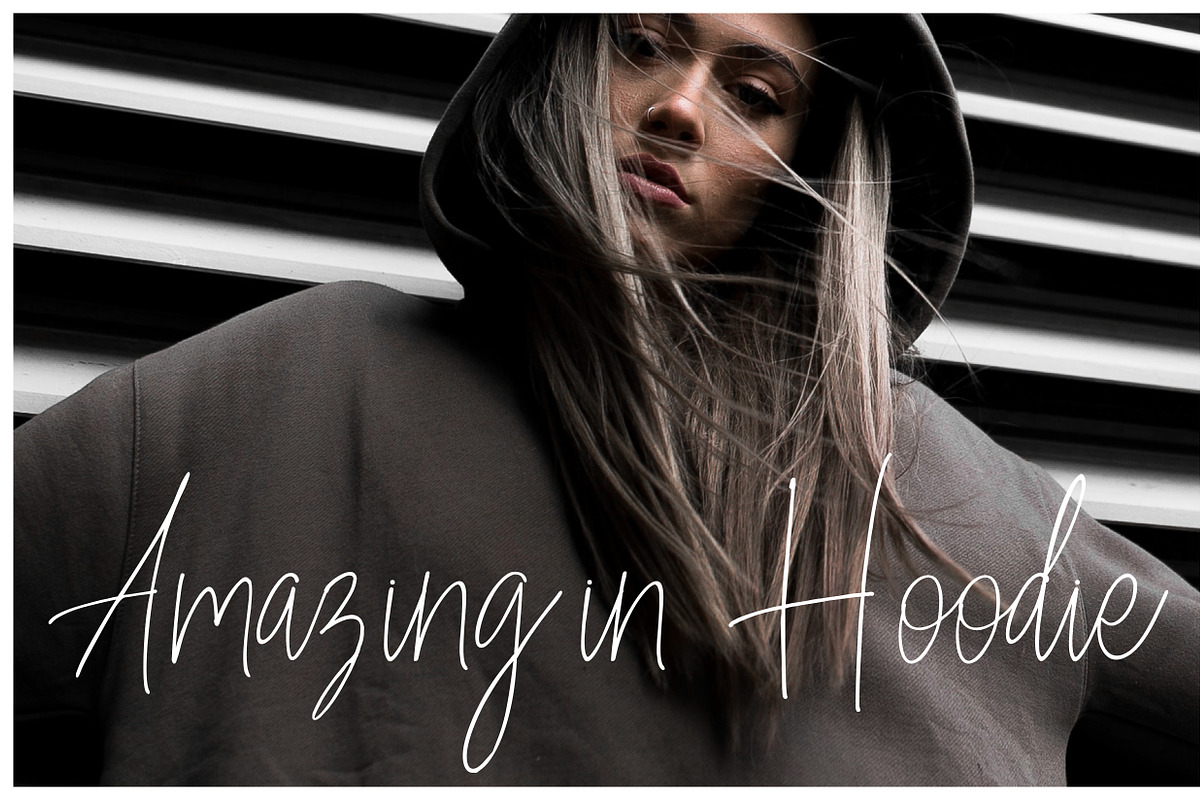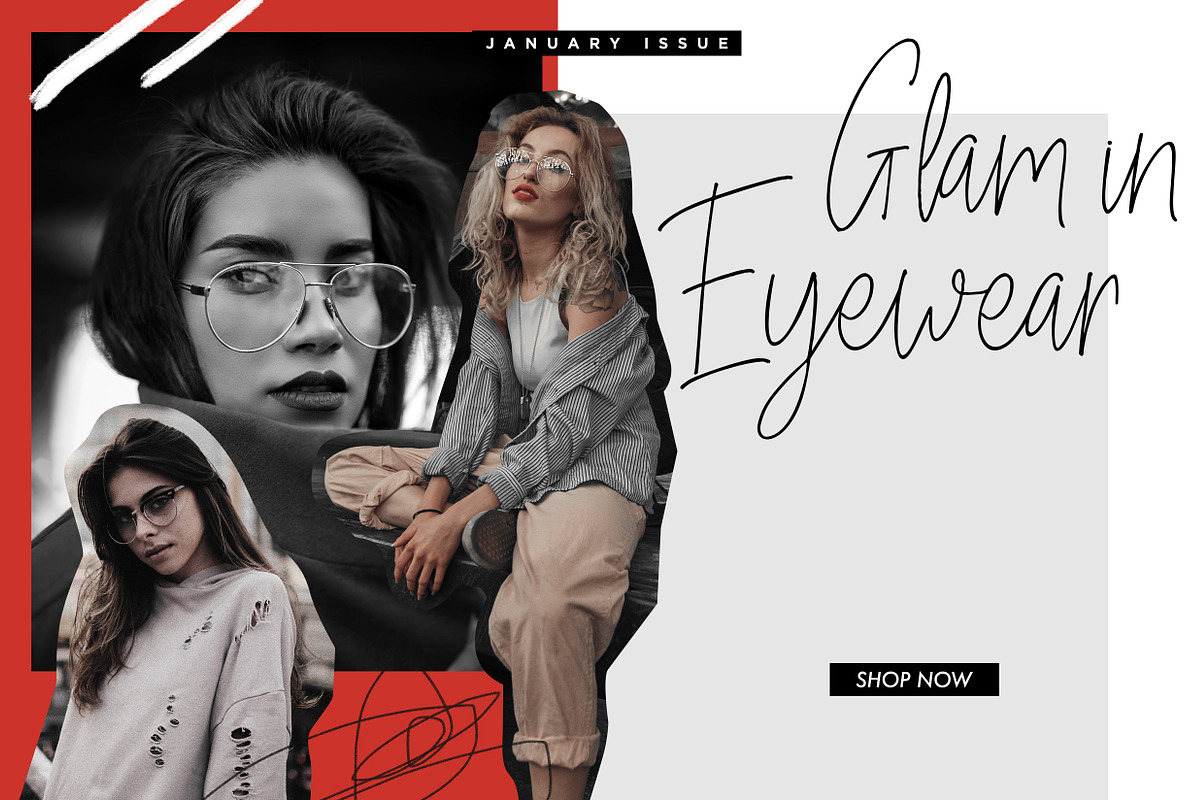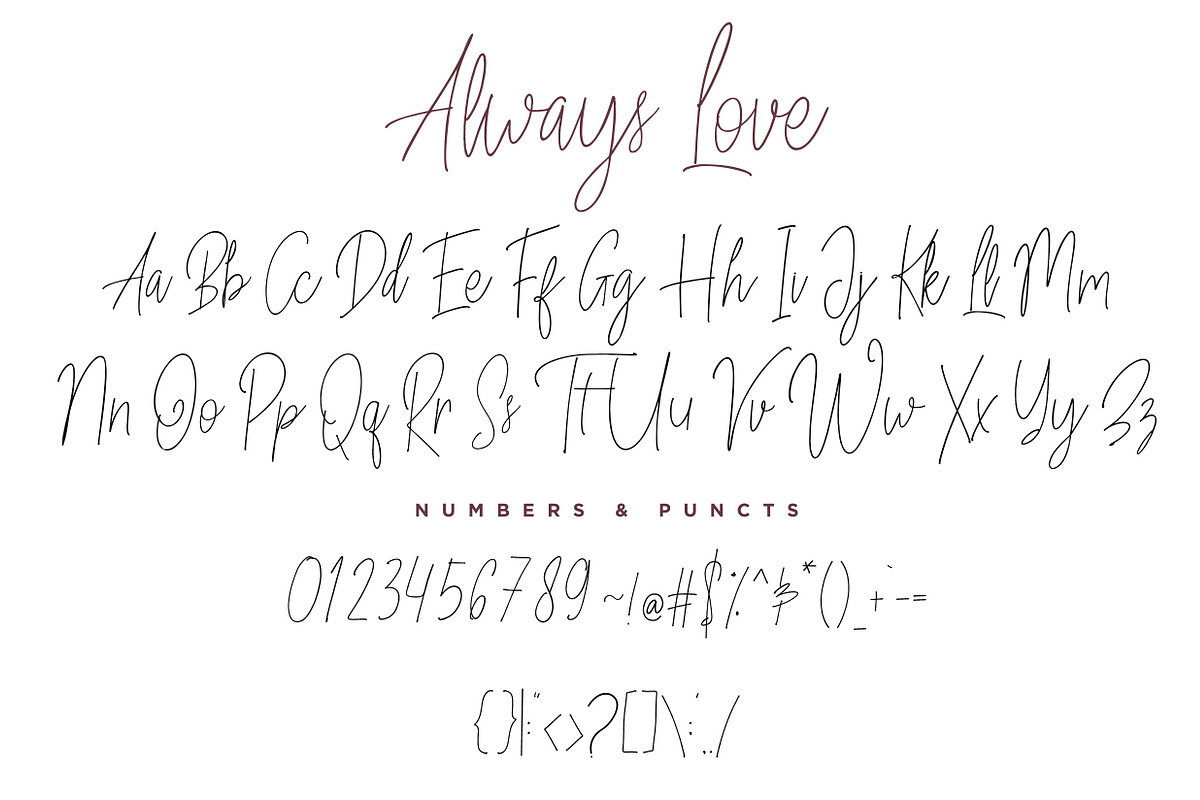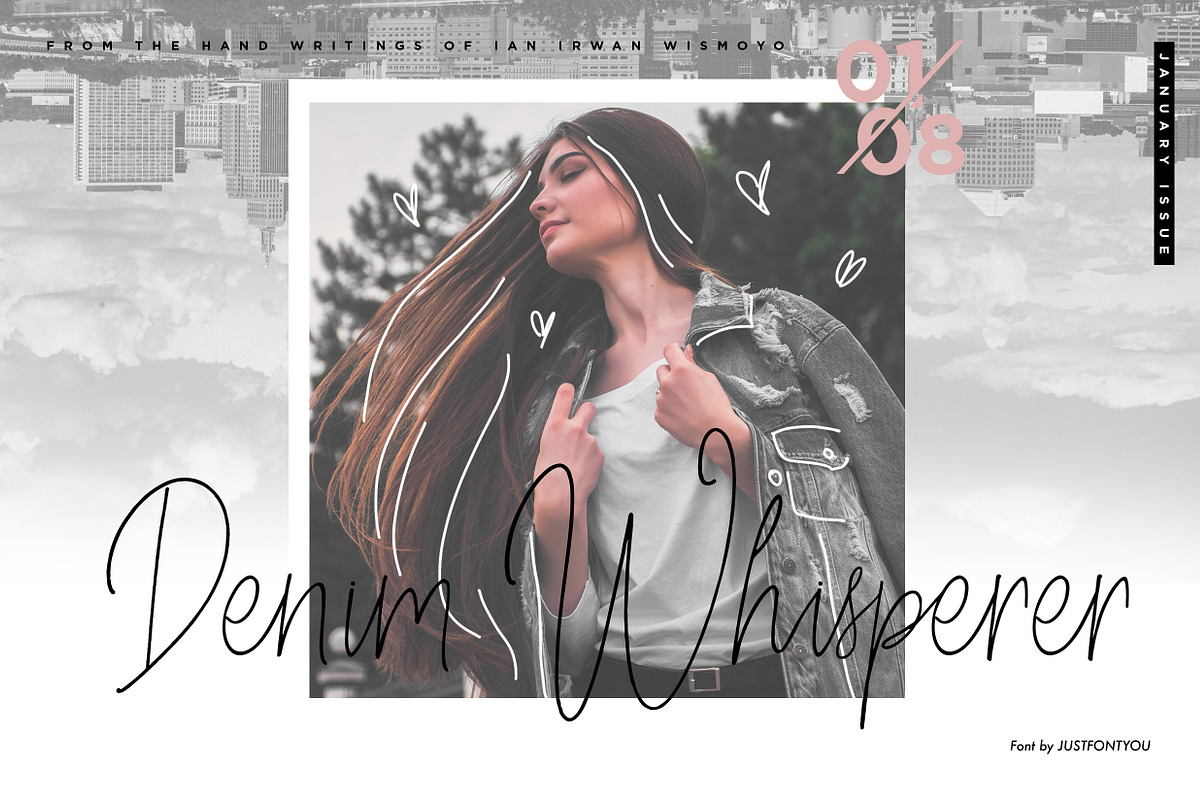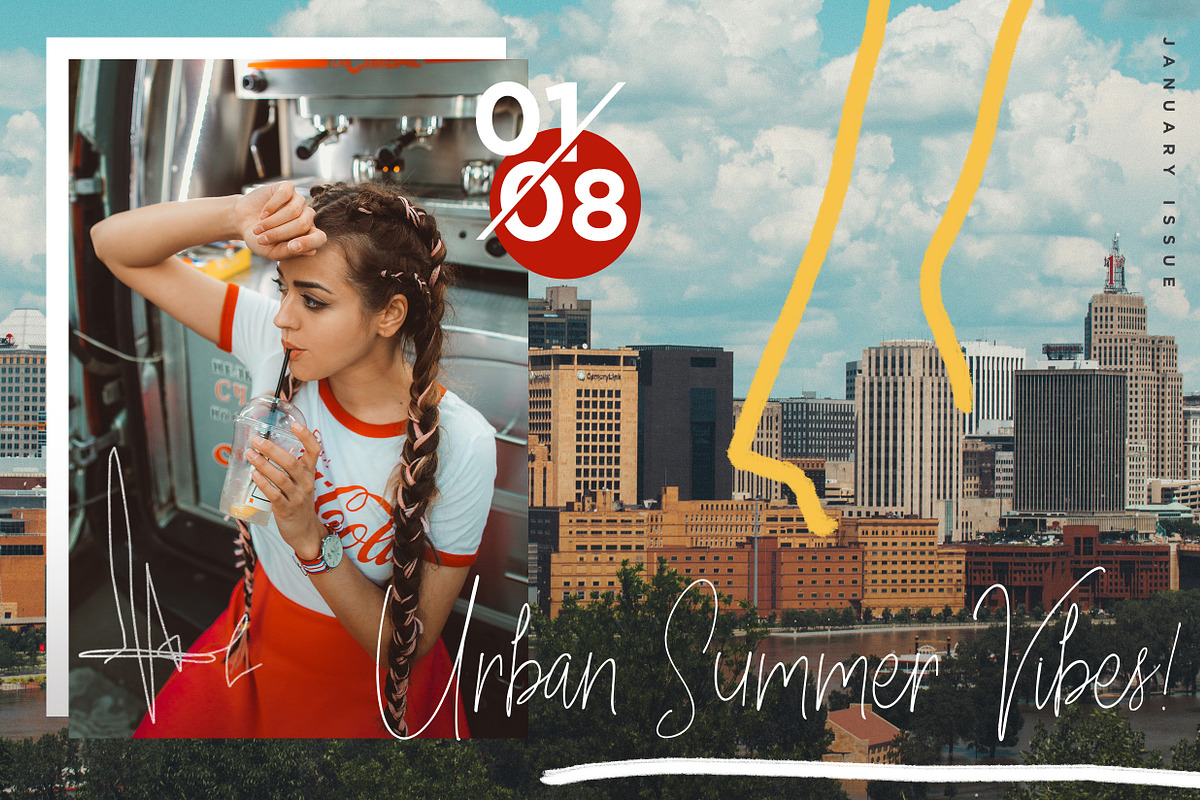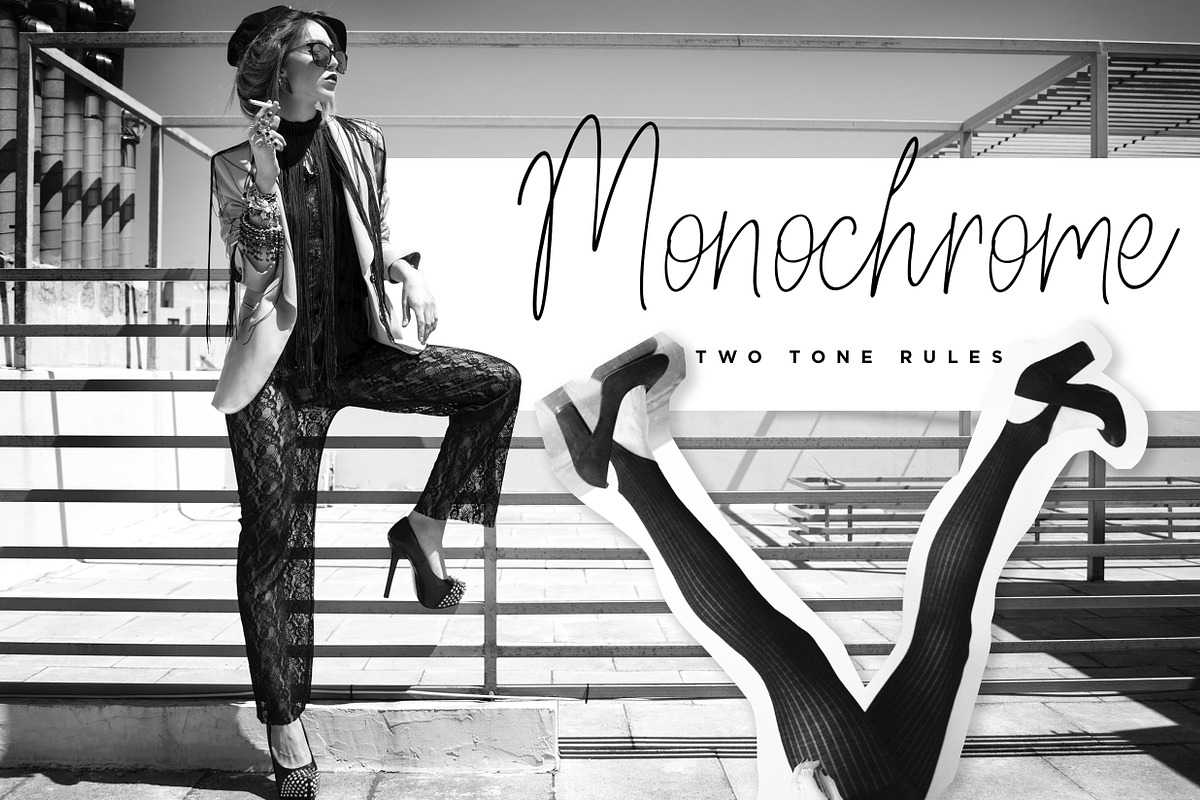
Always Love - Handwritten Font
Always Love, A casual handwriting style font with implementation of my original handwriting into a set of font. Perfectly fit for branding, logo, wedding things, greeting cards, fashion, lookbook, marketing promotion, just put it to your design and it will casually instant love to anyone who see it.
Included Uppercase, Lowercase, Numbers & Punctuations. English language support only. If your language has the same letters with English language, you're good to go with this font.
Always Love - Handwritten Font by Ian Irwanwismoyo fits naturally into Branding, posters, packaging, typography.